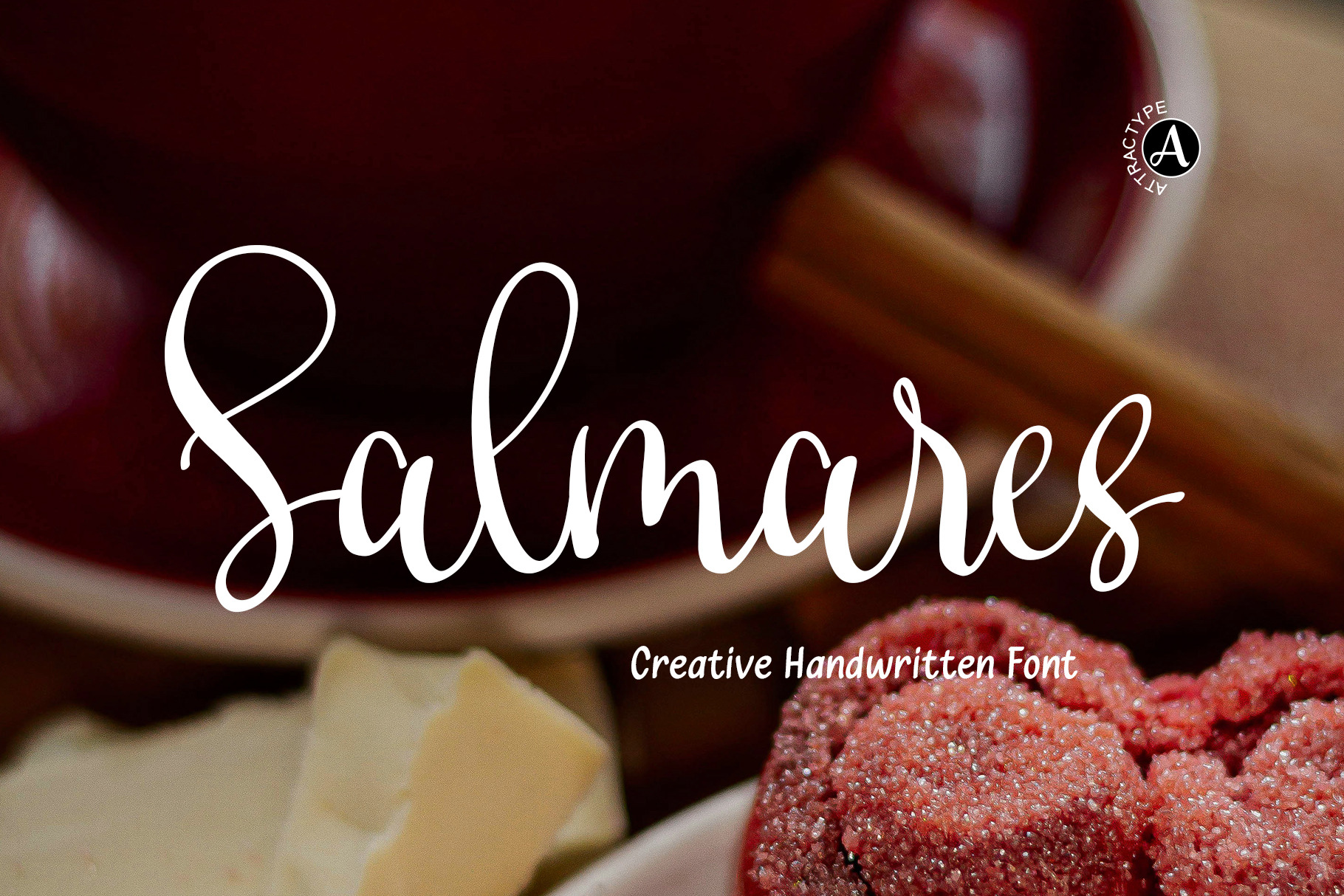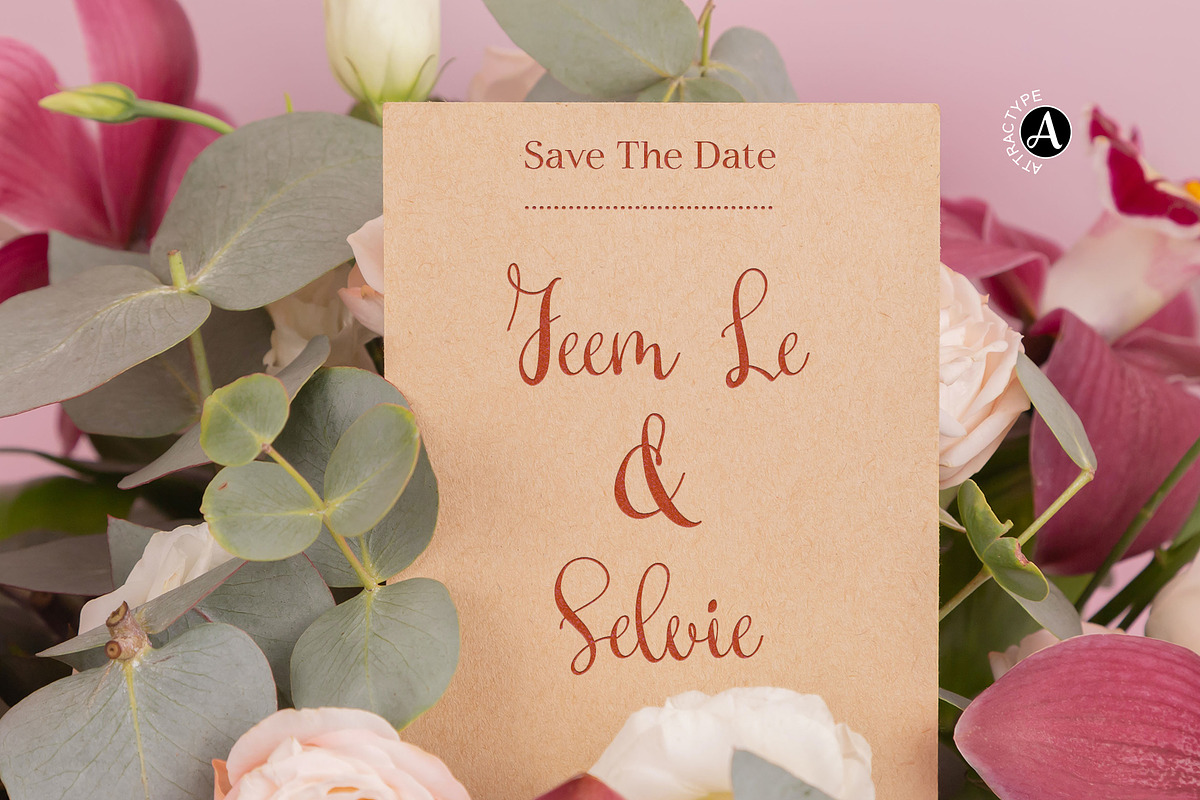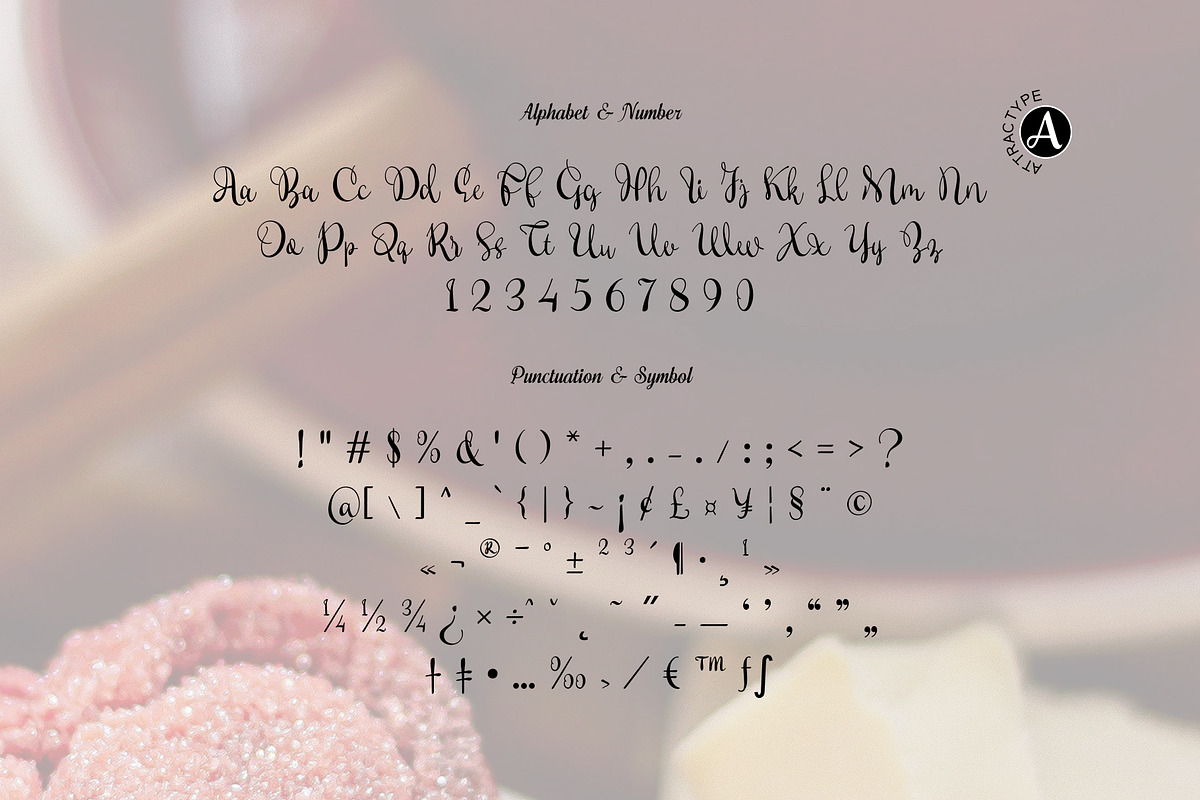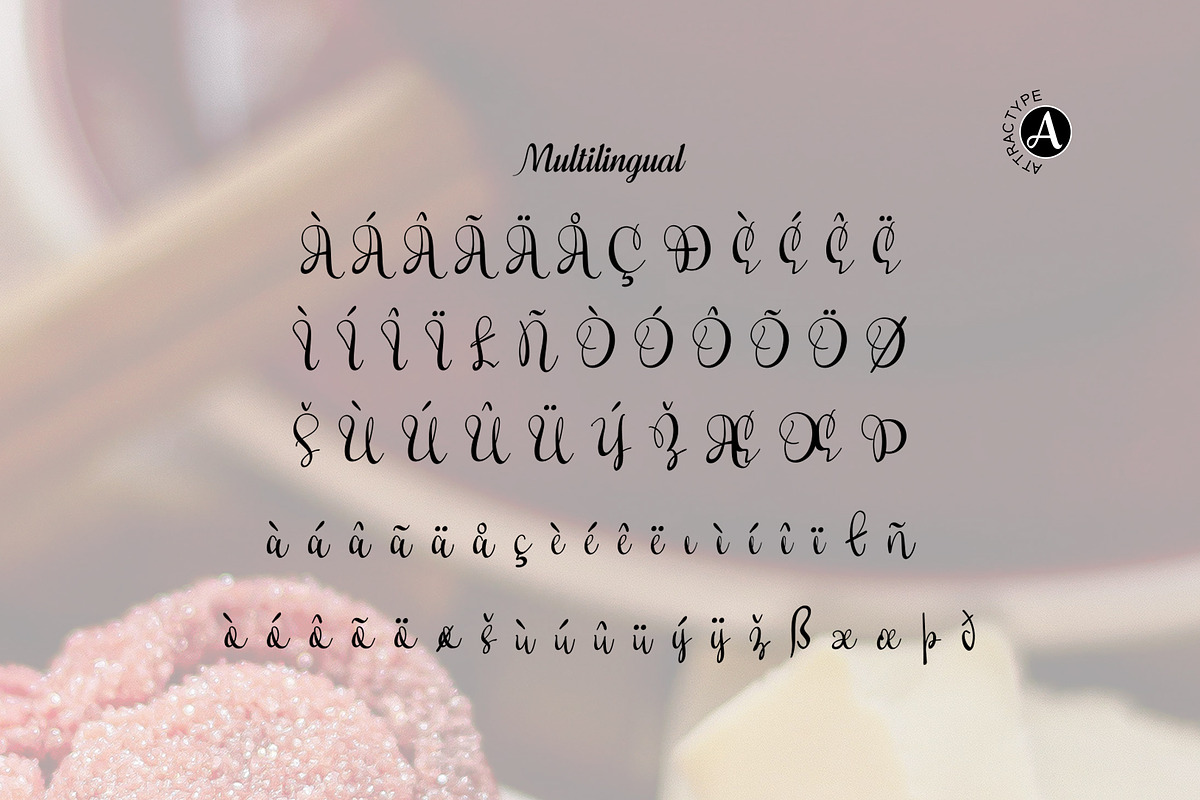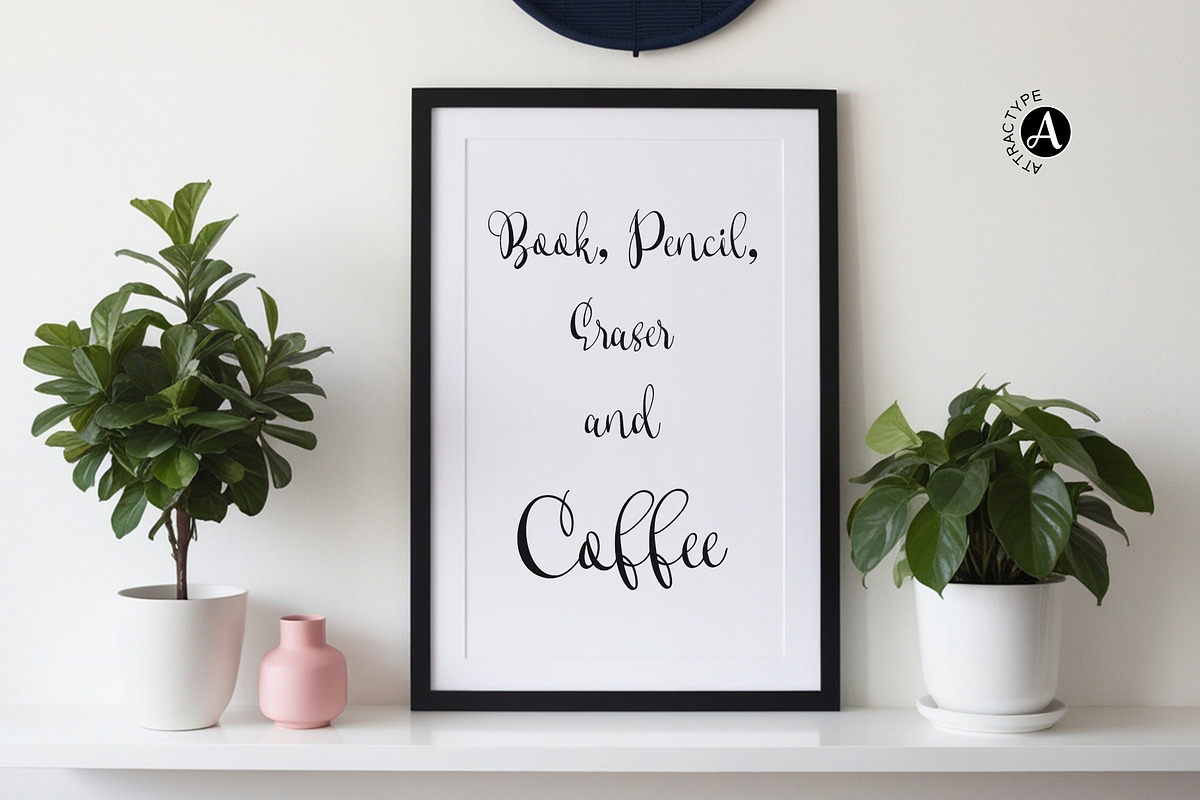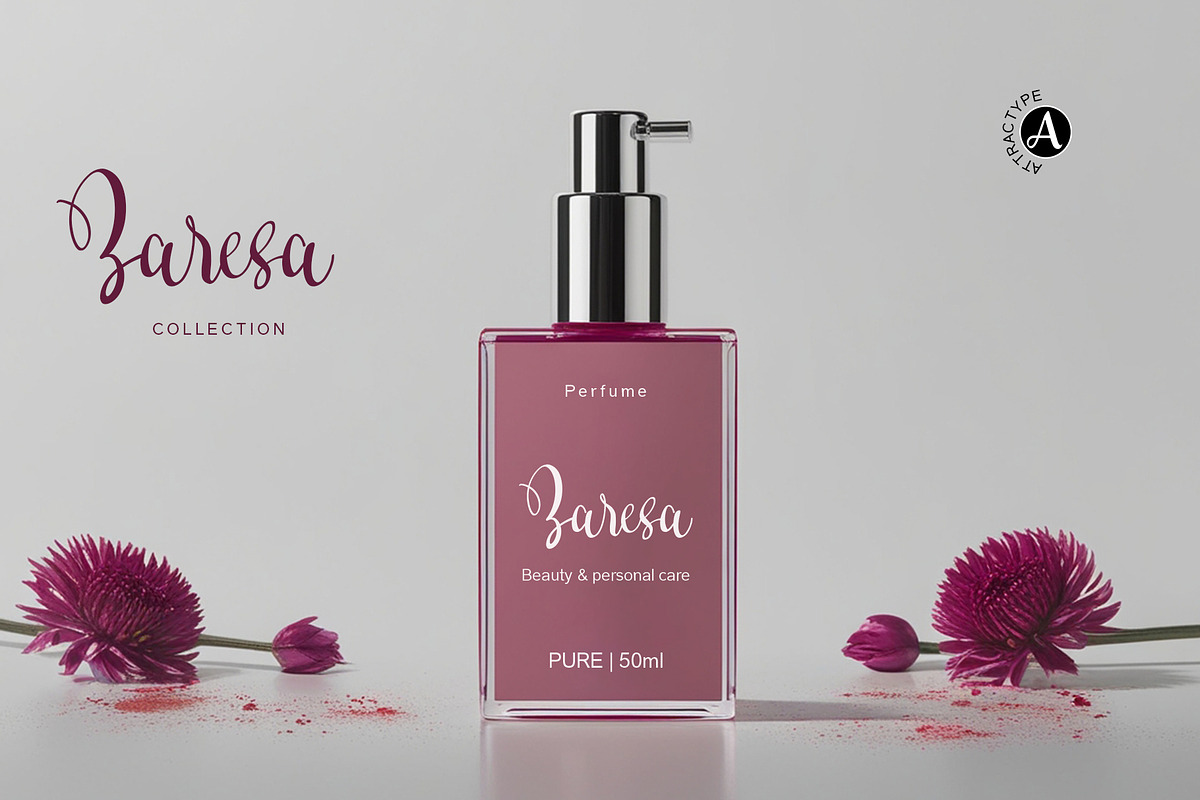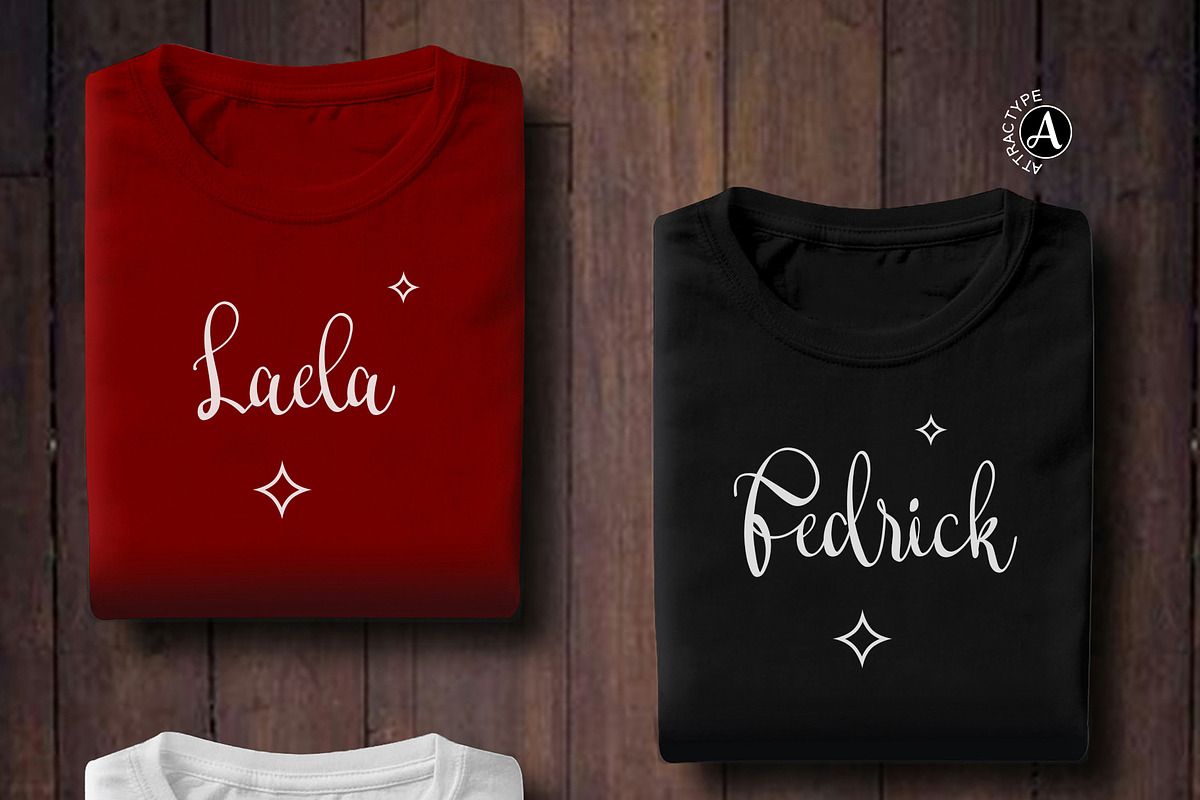
Salmares - Creative Handwritten Font
Salmares - A beautiful handwritten font, made of creative strokes with high contrast.
This font is suitable for all your creative designs. With a modern style and smooth curves, this font will beautify your creations both in digital and printed forms such as invitations, banners, advertisements, websites, letterheads, packaging products, brochures, social media and more.
All uppercase, lowercase and punctuation are covered in this font, equipped with ligature letters and multilingual support.